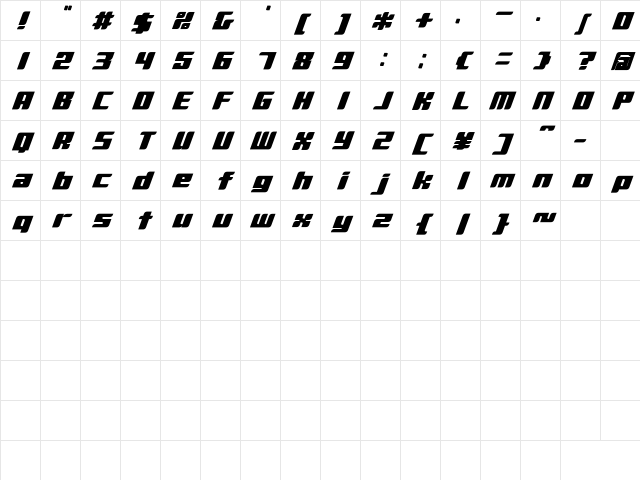
D3 Surfism_I Regular
Design Context for D3 Surfism_I
D3 Surfism_I is a composed and adaptable typeface that performs quietly and consistently across a wide range of design contexts.